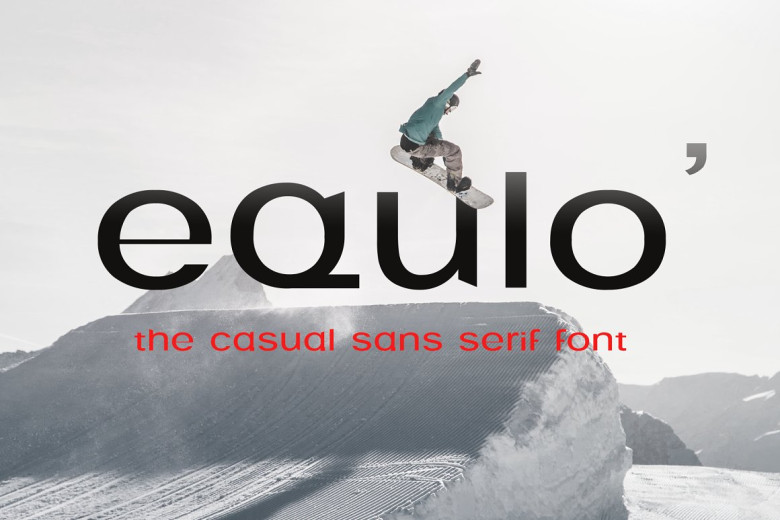
Equlo Font
Equlo is an elegant sans serif typeface, designed with contemporary simplicity in mind. Ideal for logos, magazines, brochures, social media sites and other applications requiring text to stand out, Equlo can provide just what is needed in one package.
Equlo Sans Serif Font